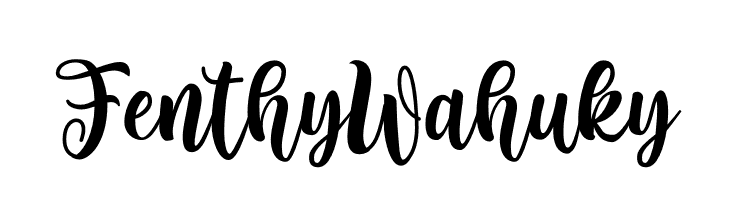
A playful and elegant script font with decorative flourishes and high contrast.
A playful, elegant script font with a handwritten feel and decorative swirls.
A lively, expressive handwritten font with fluid strokes and playful aesthetics.
A dynamic and elegant cursive script font with flowing letterforms.
A dynamic script font with elegant, flowing lines and cursive letterforms.